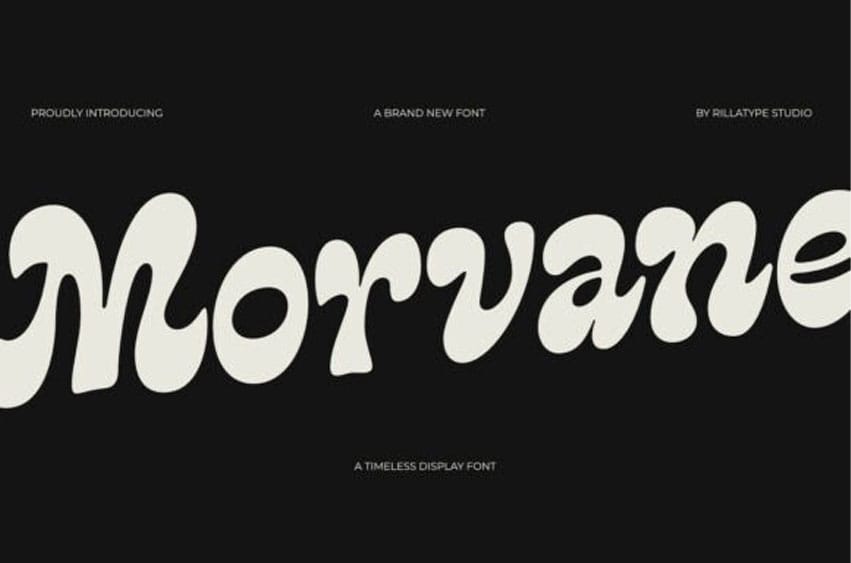
Morvane Font Step into a world of retro sophistication with Morvane, a stunning display typeface that captures a “groovy-and-glamorous” soul. This font features massive, high-contrast letterforms uniquely characterized by rhythmic, flowing curves and a 70s-inspired liquid structure that bridges the gap between vintage vinyl covers and modern luxury editorial.
With its heavy structural weight and smooth personality, Morvane is the premier choice for independent fashion branding, high-end lifestyle magazines, boutique hospitality identities, and high-impact “classic-and-cool” social media headers.